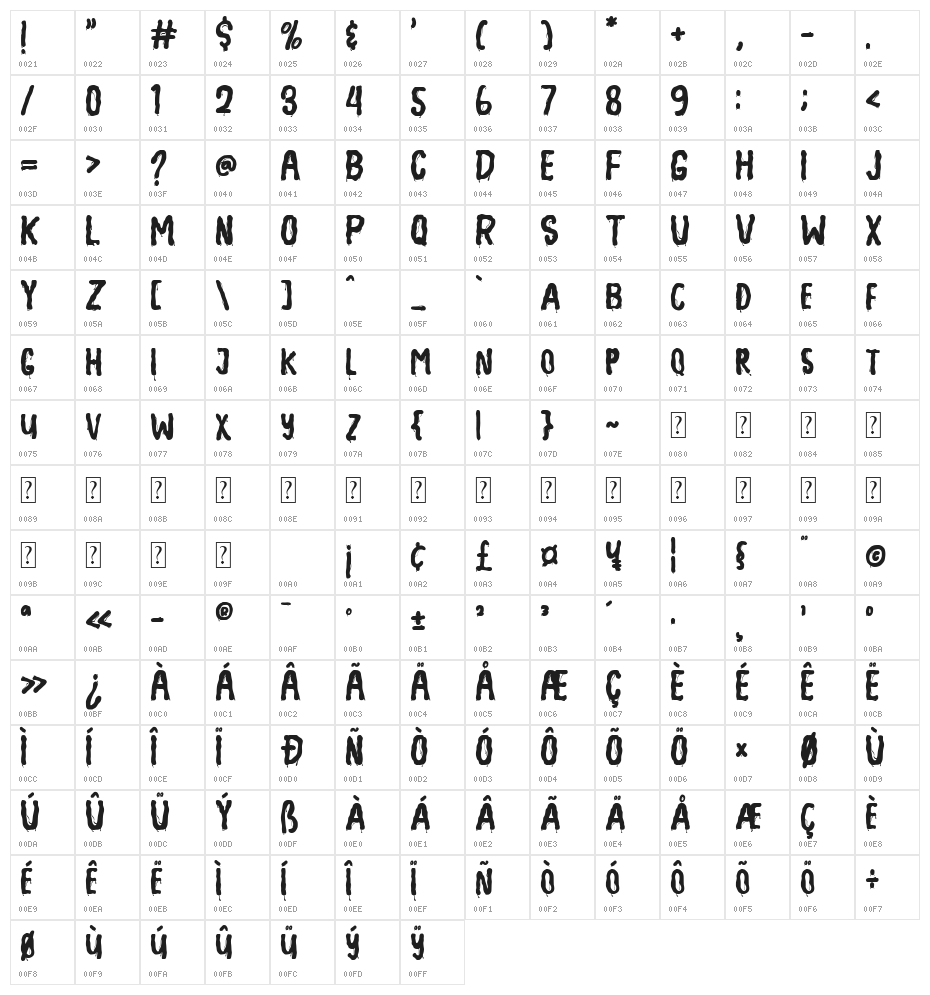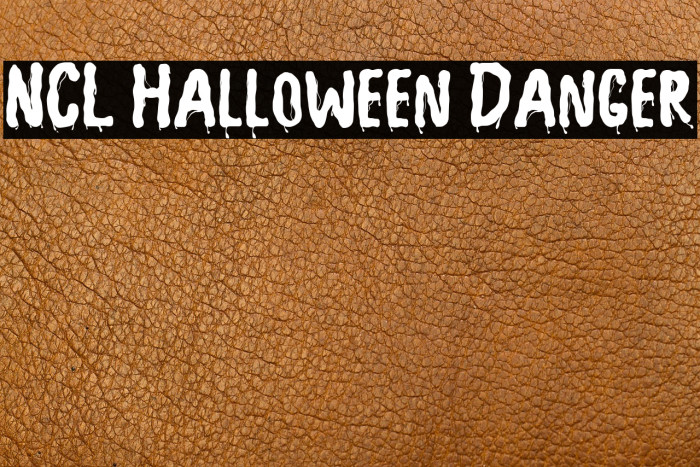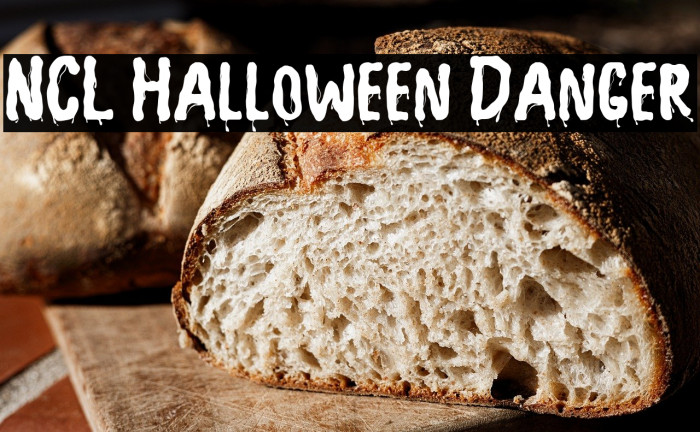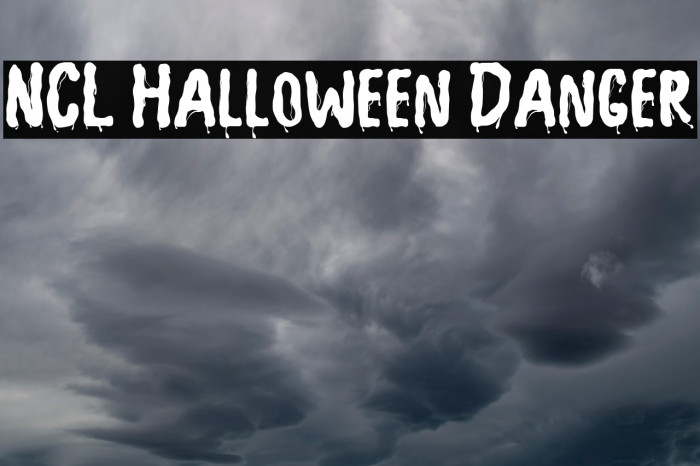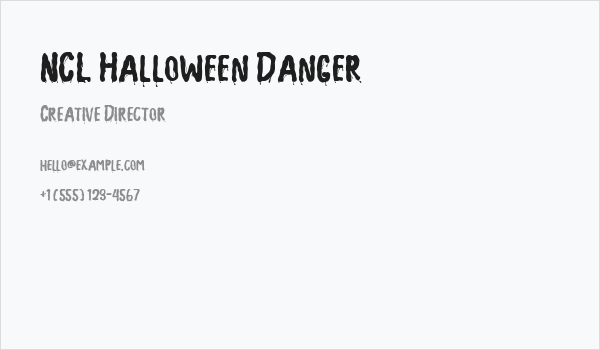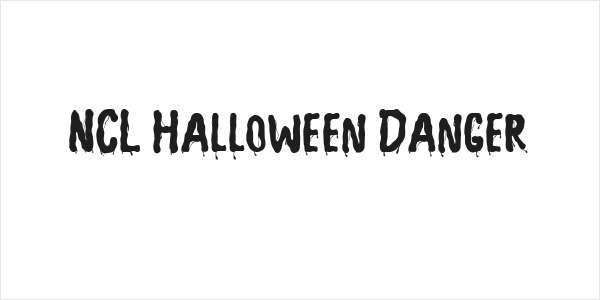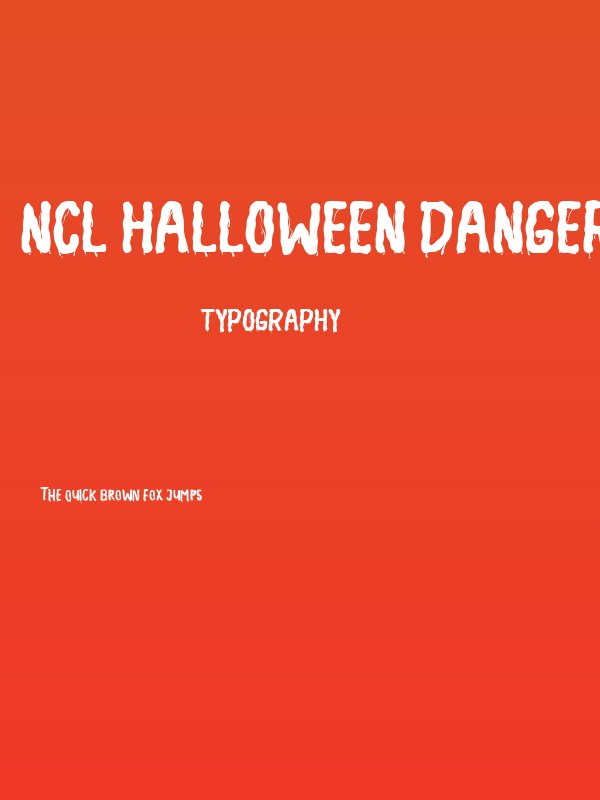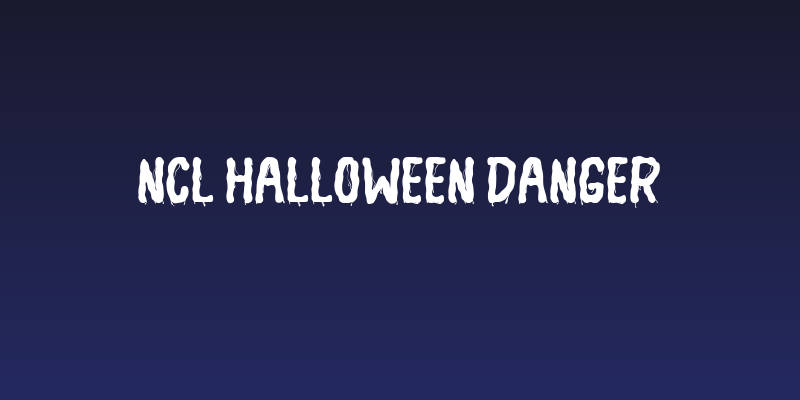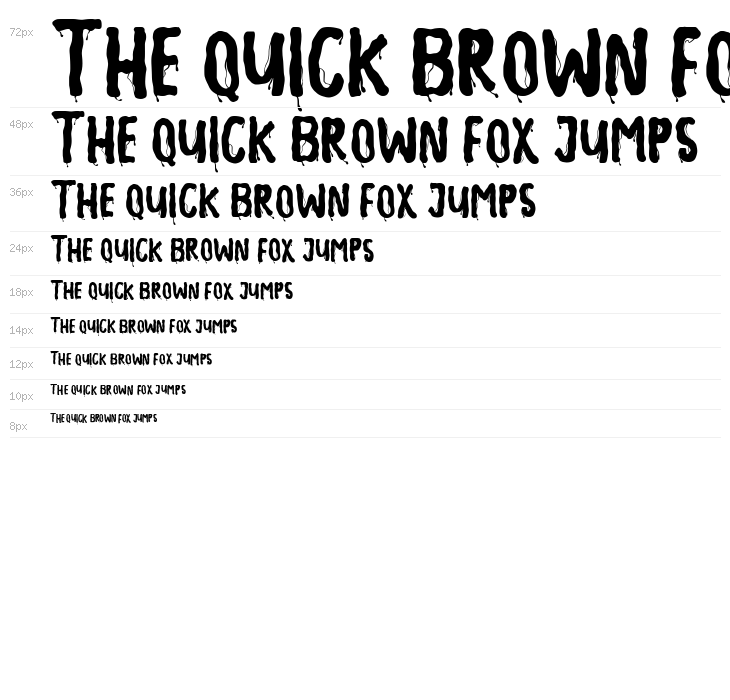
NCL Halloween Danger Font
NCL Halloween Danger Description
This font exudes a spooky and eerie vibe, perfect for Halloween-themed designs. The letters appear as if they are dripping, reminiscent of melting wax or blood, adding a chilling effect. The bold and irregular strokes give it a hand-drawn appearance, enhancing its unsettling aesthetic. The uppercase and lowercase letters maintain a consistent style, with numbers and special characters following suit. This font is ideal for creating a sense of danger or horror, making it suitable for posters, invitations, and other themed projects.
| Proposed Projects | Ideal for Halloween posters, horror movie titles, themed invitations, and spooky event flyers. |